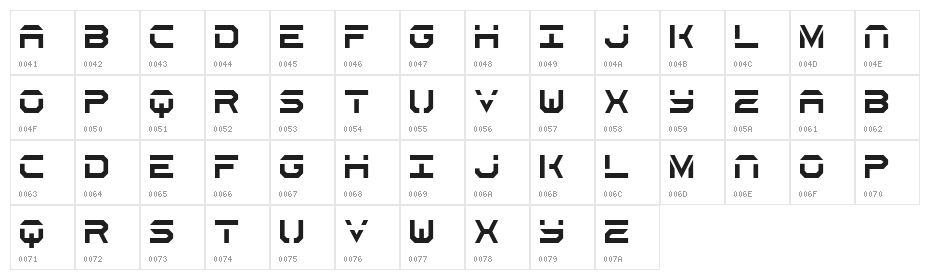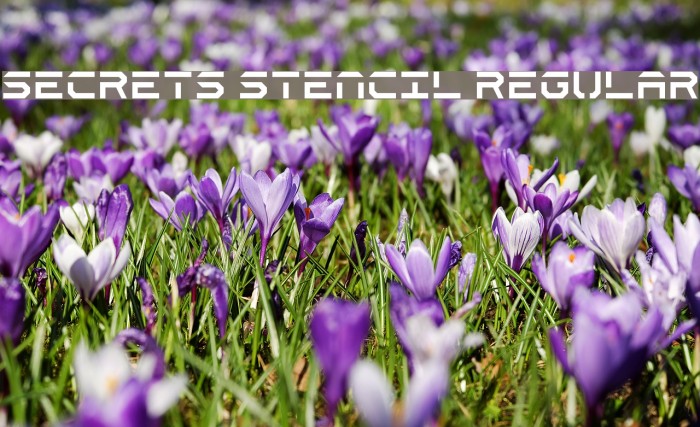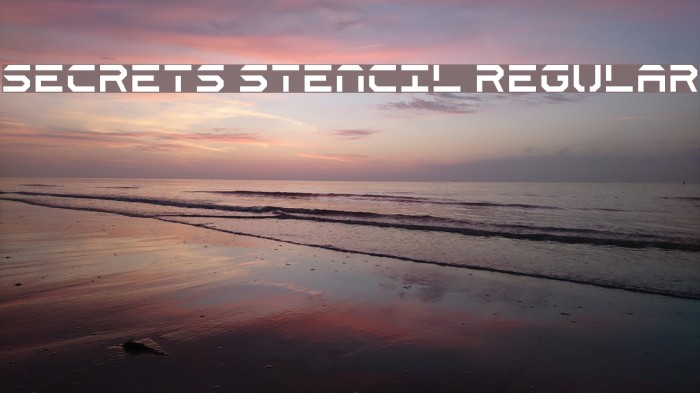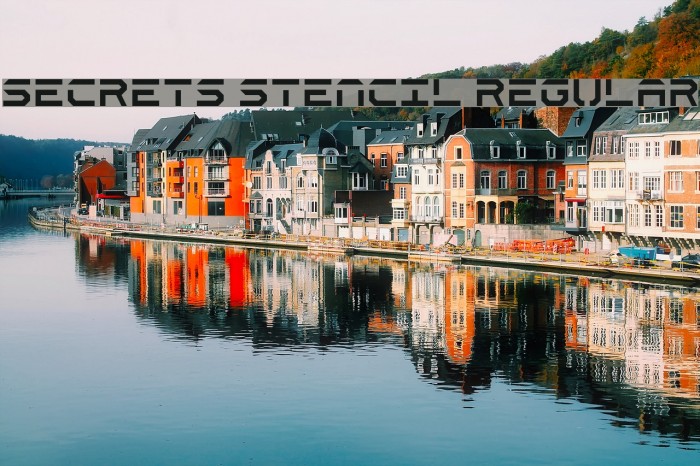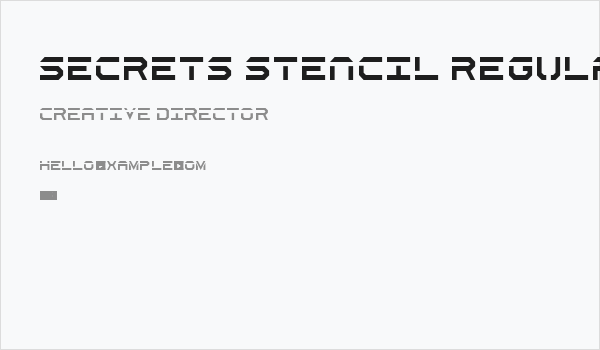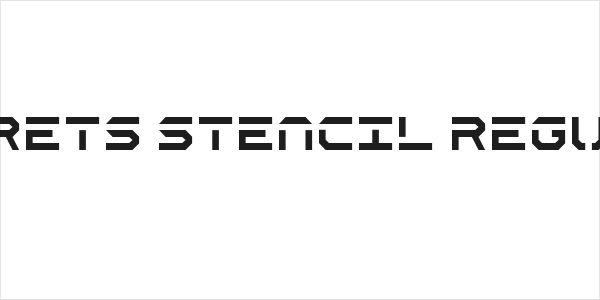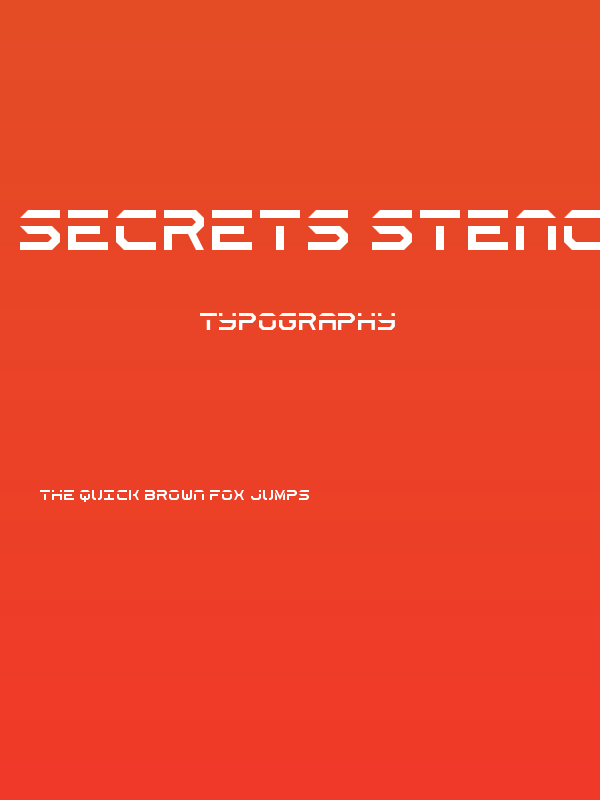
Secrets Stencil Regular Font
Secrets Stencil Regular Description
This font features a bold, geometric stencil design, characterized by its angular and blocky letterforms. The cut-out sections within each character give it a distinct, industrial feel, reminiscent of military or technical stencils. The uppercase letters are uniform in height, with consistent spacing that enhances readability despite the unique design. The absence of curves and the presence of sharp angles contribute to its modern and edgy appearance. This font is particularly suitable for projects that require a strong and impactful visual statement.
| Proposed Projects | Ideal for branding, posters, signage, and any design needing a strong, industrial aesthetic. |